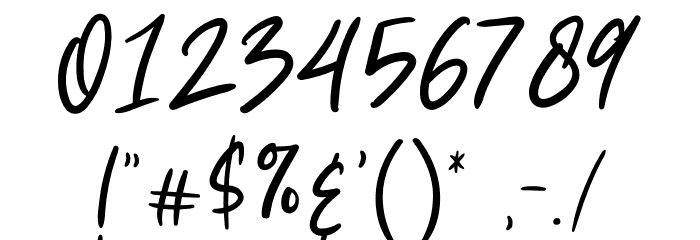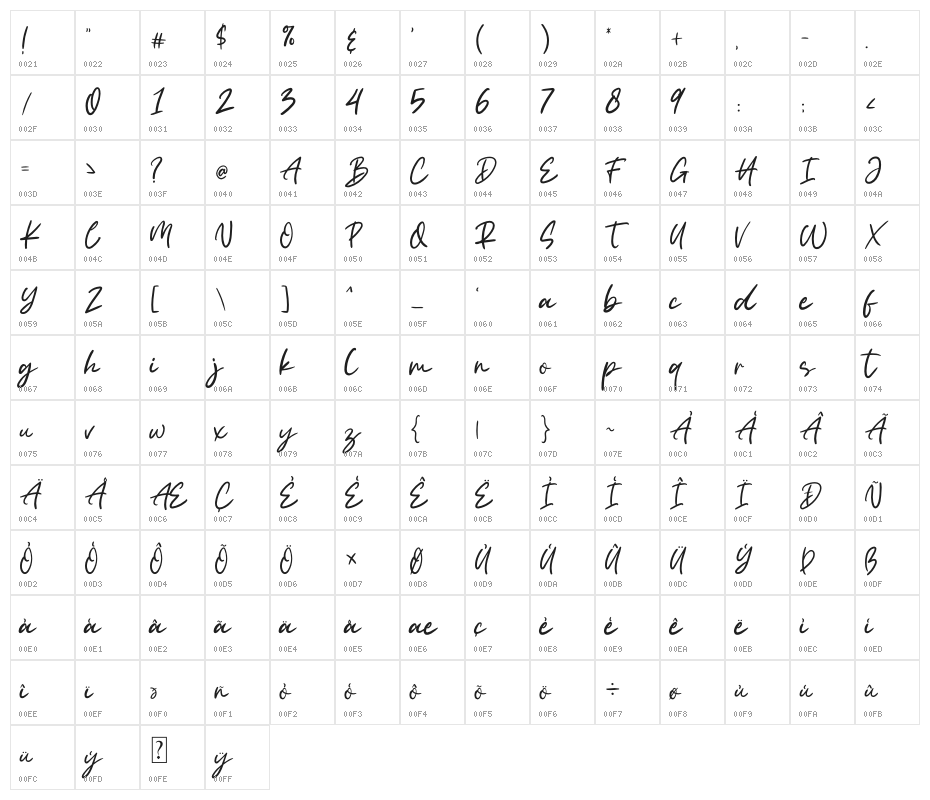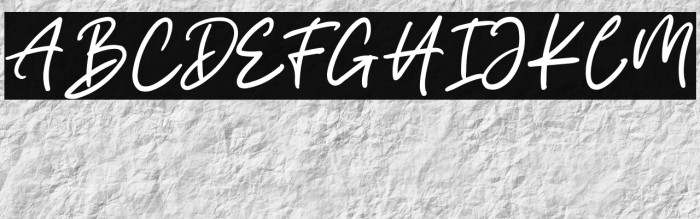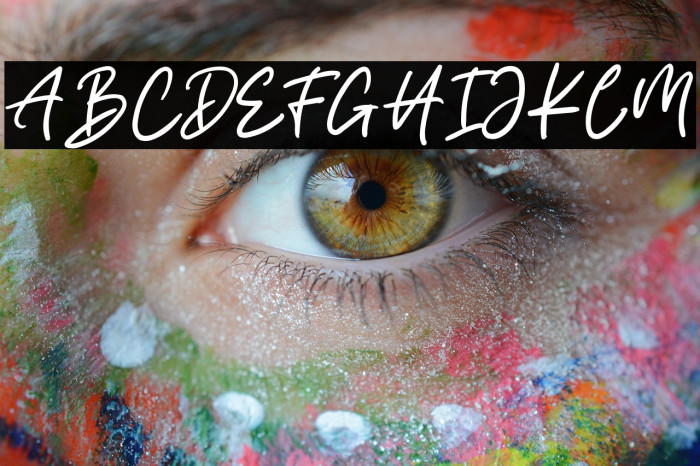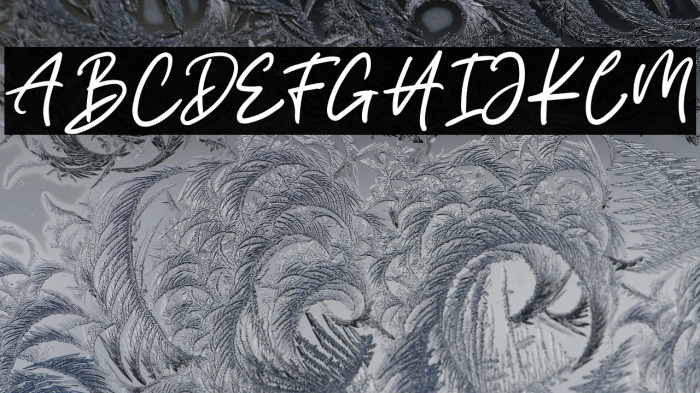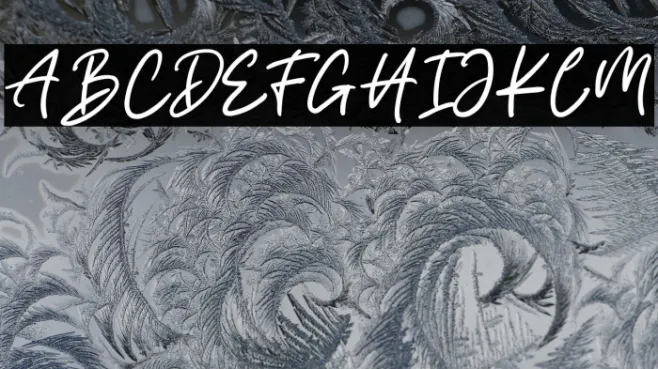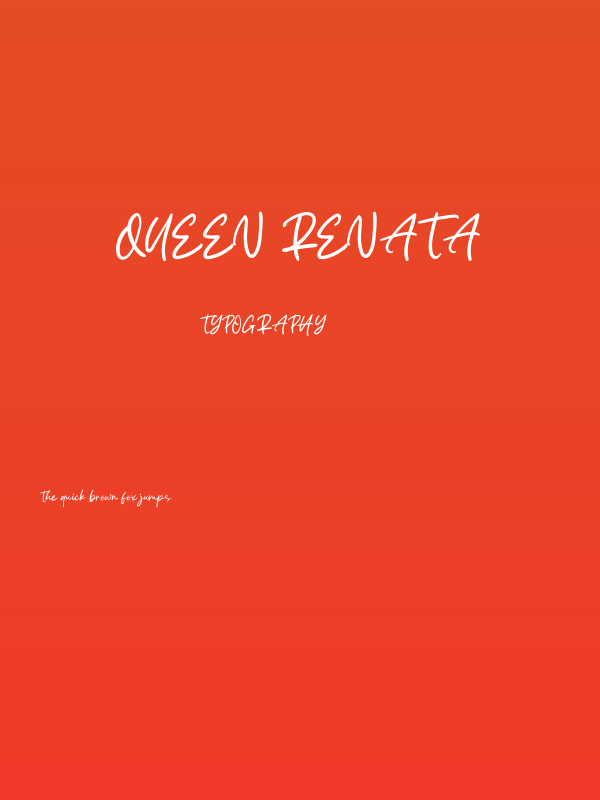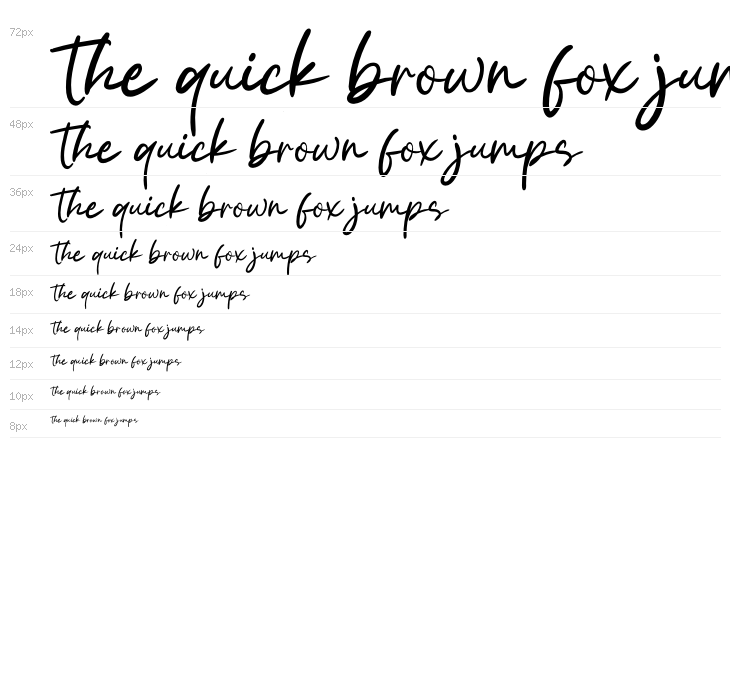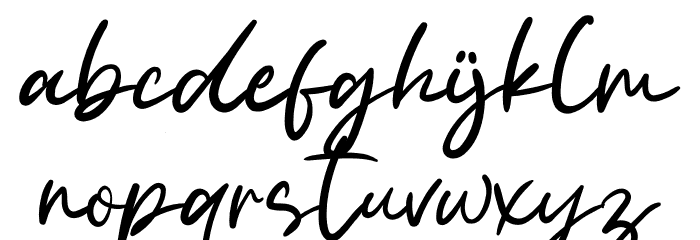
Queen Renata Font
Queen Renata Description
This font exudes a lively and expressive character, with its handwritten style that mimics the fluidity and spontaneity of natural handwriting. The letters are crafted with a smooth, flowing motion, giving it a personal and informal touch. The uppercase and lowercase letters are well-balanced, maintaining a consistent rhythm throughout. The numerals and special characters are equally dynamic, fitting seamlessly into the overall aesthetic. This font's playful yet elegant appearance makes it versatile for various creative projects.